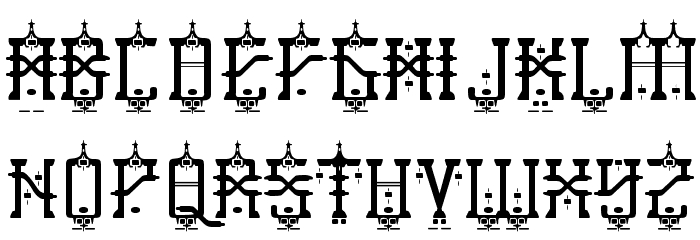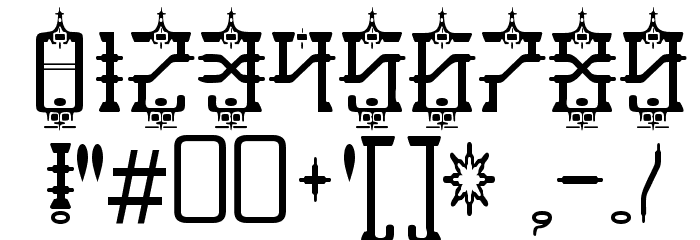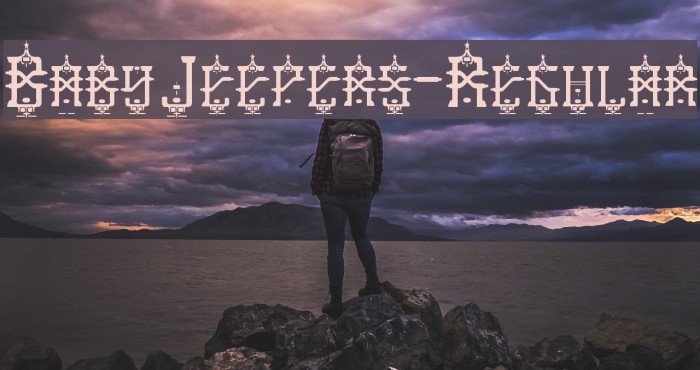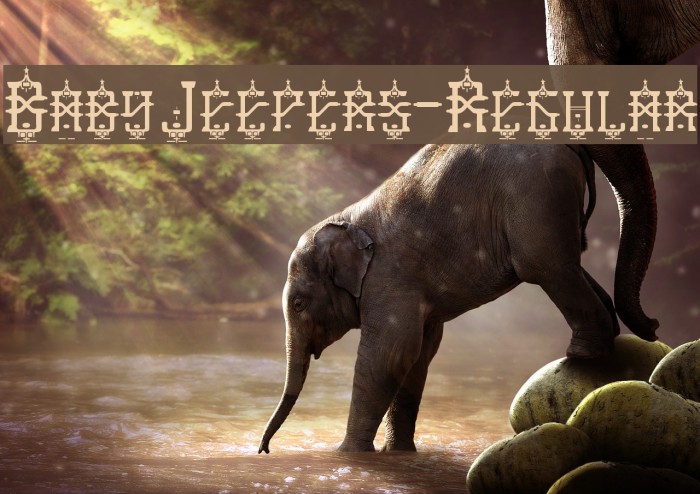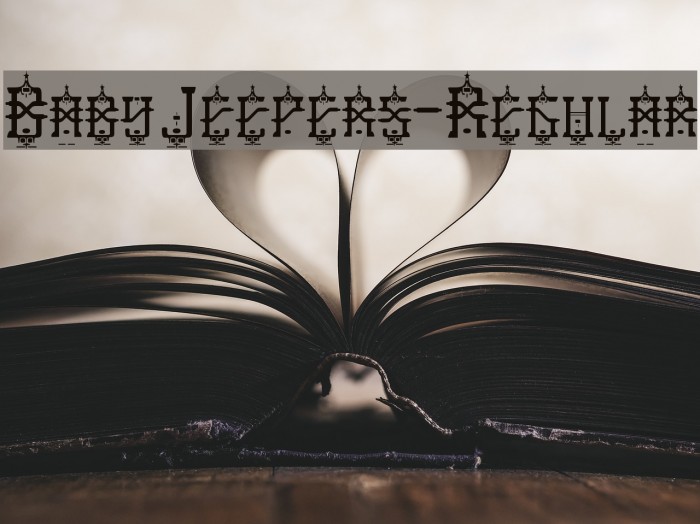
BabyJeepers-Regular Font
This font features a highly decorative and playful design, characterized by its whimsical and intricate details. Each character is adorned with unique embellishments, giving it a quirky and imaginative appearance. The font combines elements of both geometric and organic shapes, resulting in a visually striking and unconventional style. The uppercase and lowercase letters maintain a consistent theme, with exaggerated serifs and playful curves. The numbers and special characters are equally ornate, contributing to the overall cohesive look. This font is ideal for projects that require a touch of creativity and fun.
A whimsical and decorative font with intricate details and playful embellishments.